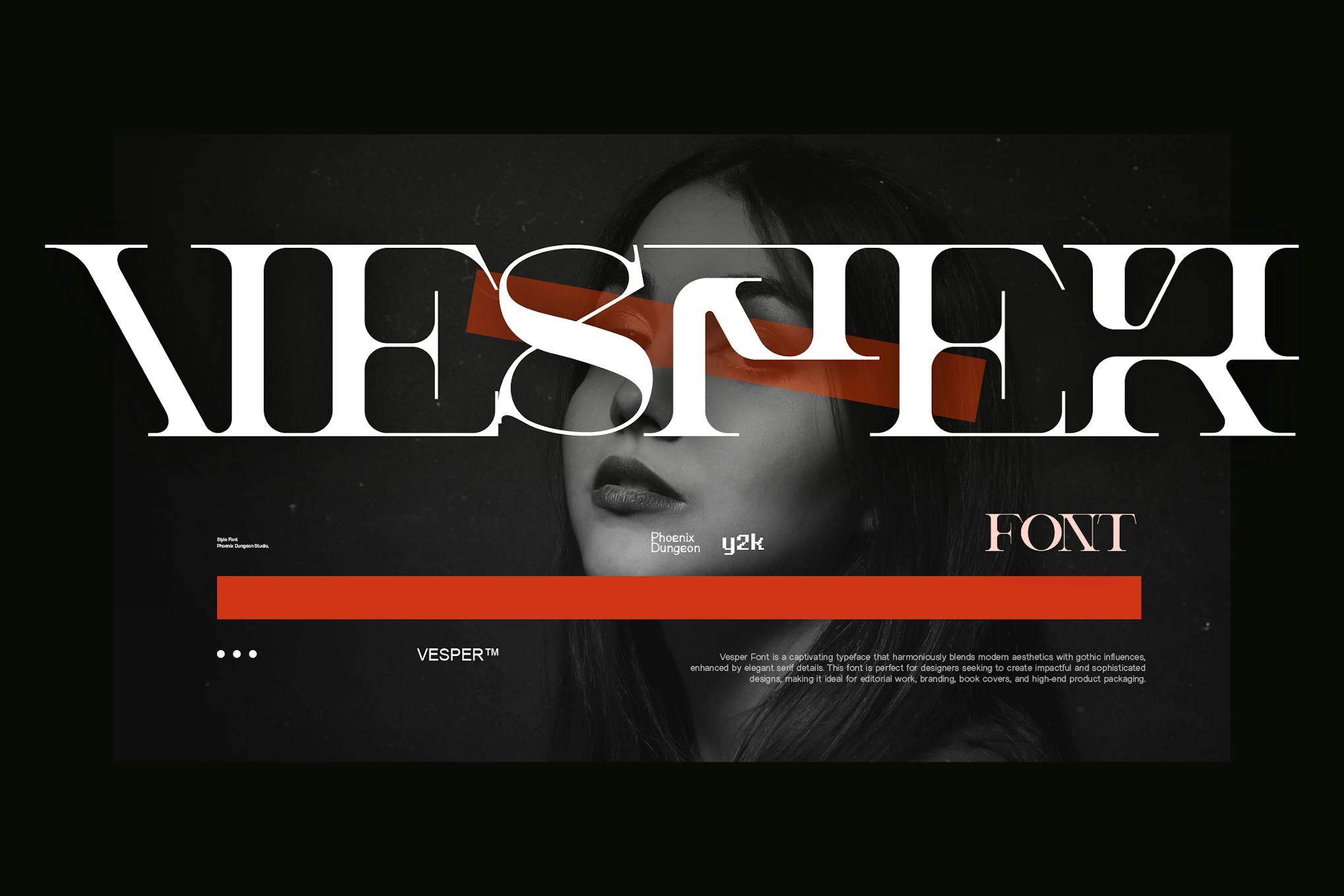
Vesper Font
Vesper Font illuminates evening ceremony programs, twilight wedding invitations, sunset resort branding, dusk photography studio identities, evening prayer service materials, twilight meditation center signage, vespers religious publications, golden hour wellness retreats, evening star observatory graphics, twilight dining restaurant menus, sunset cruise promotional materials, and evening lifestyle marketing where vespertine elegance and twilight serenity create enchanting dusk experiences.
This enchanting typeface generates excitement through its perfect embodiment of evening tranquility and vespertine sophistication that creates typography capturing the magical transition between day and night. Vesper Font captures the essence of twilight beauty with its softly luminous letterforms that suggest the gentle glow of evening stars and the peaceful atmosphere that emerges during the sacred hour of vespers. The font's serene design approach incorporates elements that evoke candlelit prayers, sunset reflections, and the contemplative stillness that defines evening spiritual practices and twilight moments of reflection. Its distinctive character reflects the peace, reverence, and gentle wisdom that define authentic vespertine traditions and evening contemplation.
The Vesper Font family encompasses multiple twilight variations including Regular, Light, Medium, Bold, and Evening versions, each maintaining the font's characteristic vespertine grace while offering different levels of twilight impact. The collection features evening-inspired styling, twilight effects, and vespertine textures that enhance its serene aesthetic. Additional elements include star symbols, evening ornaments, twilight decorative borders, and vespertine flourishes that reinforce the font's connection to evening traditions and twilight spirituality.
Spiritual organizations and evening entertainment venues consistently select Vesper Font Free Download for projects requiring typography that communicates twilight sophistication and vespertine authenticity. This remarkable typeface excels in applications where establishing evening atmosphere and conveying twilight serenity are essential for spiritual and hospitality success. The font's vespertine qualities make it particularly effective for religious institutions, evening entertainment venues, and twilight wellness centers targeting audiences who appreciate evening traditions and vespertine spiritual practices.
Whether you're designing evening ceremony materials, creating twilight hospitality branding, developing vespertine spiritual programs, or crafting sunset communications, Vesper Font delivers unmatched evening authenticity. Its ability to convey twilight serenity, vespertine sophistication, and evening spirituality makes it invaluable for evening professionals seeking typography that genuinely captures the sacred beauty of twilight moments. The font's vespertine presence ensures your designs will communicate the peaceful elegance and evening wisdom that define exceptional twilight communications and vespertine spiritual experiences.